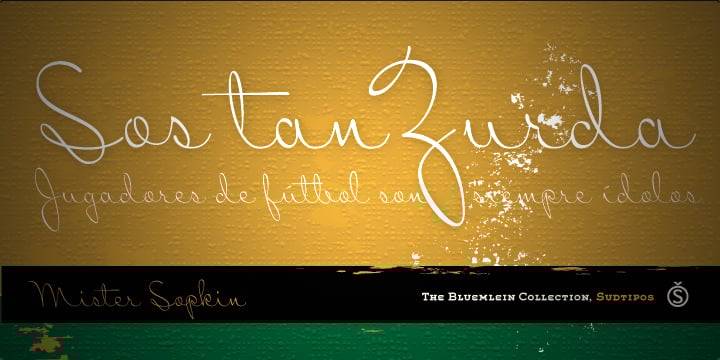
If you're searching for a unique and stylish typeface to elevate your design projects, Mr Sopkin Pro Font Free Download is an excellent choice. This modern and versatile font is perfect for branding, logos, social media graphics, and more. With its sleek lines and professional appeal, Mr Sopkin Pro adds a touch of sophistication to any creative work.
Why Choose Mr Sopkin Pro Font?
Mr Sopkin Pro stands out with its clean and contemporary design, making it ideal for both digital and print media. Whether you're designing a website, creating promotional materials, or working on personal projects, this font delivers exceptional readability and visual appeal.
Mr Sopkin Pro Font Free Download – Key Features:
Modern & Elegant Design – Perfect for professional and creative projects.
Multiple Weights & Styles – Offers flexibility for different design needs.